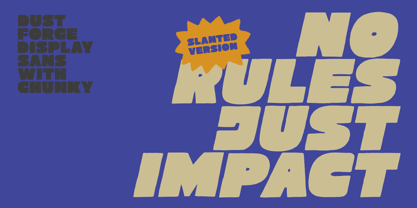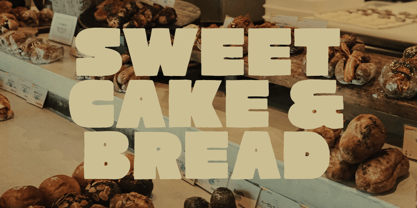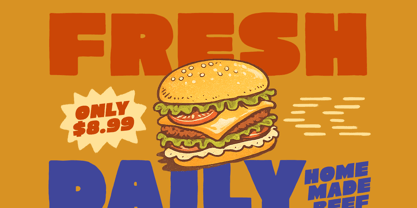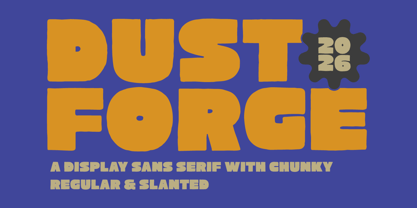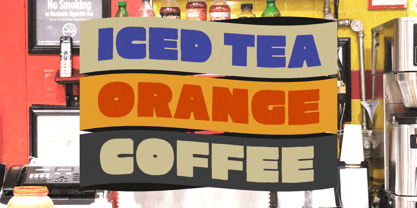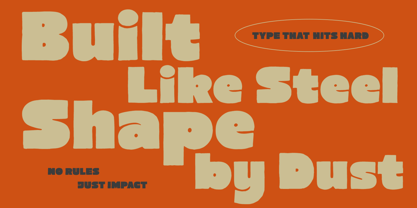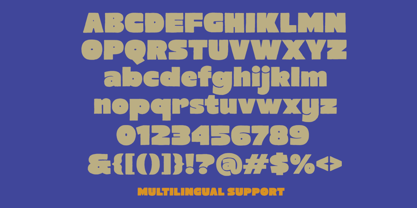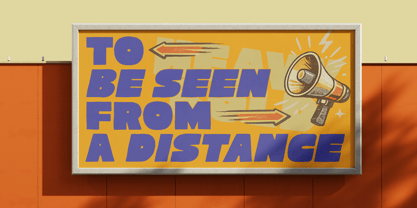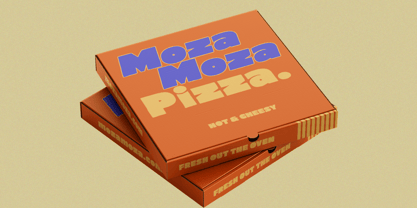
Dust Forge
Dust Forge is a chunky display sans serif that hits with a big BOOM! of retro energy and bold attitude. Built with thick curves, soft corners, and playful heavyweight shapes, this font brings instant eye-candy to posters, food branding, packaging, streetwear, album covers, and loud headline designs. The regular and slanted styles give you extra punch for creating fun layouts with a smooth vintage twist.
• Uppercase & lowercase
• Numbers and punctuation
• Alternates & Ligatures
• Multilingual Support